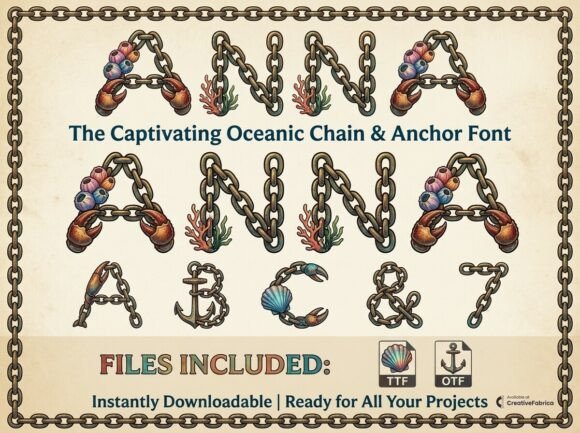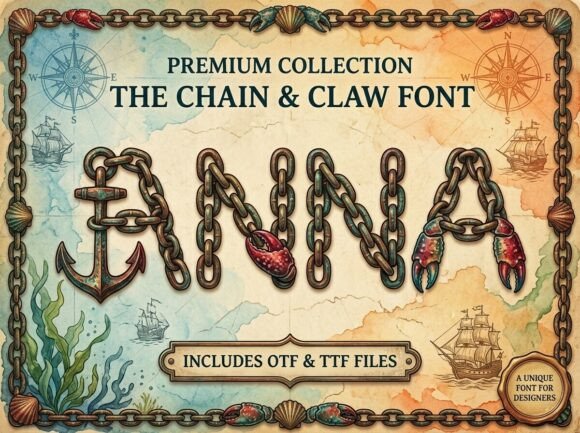
Introducing Anna Font: The Ultimate Decorative Display Font
Are you tired of using the same old fonts in your designs? Do you want to make a statement and grab the attention of your audience? Look no further than Anna Font, a stunning decorative display font that’s designed to be the center of attention. With its unique artistic elements and strong visual personality, this font is perfect for creators who want to break away from the ordinary and make their designs truly unforgettable.
What Makes Anna Font So Special?
Anna Font is a game-changer for designers and crafters who want to add a touch of elegance and sophistication to their work. This font features intricate details and creative letterforms that are sure to make your designs stand out from the crowd. Whether you’re working on a modern poster, a unique brand identity, or eye-catching social media content, Anna Font adds an instant “wow” factor to any project.
Perfect for High-Impact Designs
Anna Font is ideal for high-impact designs where the typography needs to do the talking. With its bold and artistic style, this font is perfect for making a statement and grabbing the attention of your audience. Whether you’re designing a poster, a logo, or social media content, Anna Font is sure to make your design pop.
Versatile and Professional
One of the best things about Anna Font is its versatility. This font is not only perfect for bold headlines and artistic logos, but it’s also suitable for creative packaging and other design projects. Despite its bold and decorative style, Anna Font maintains a professional and polished finish that’s perfect for businesses and brands who want to make a statement.
Use Cases for Anna Font
So, what can you use Anna Font for? The possibilities are endless! Here are some ideas to get you started:
- Poster Design: Create headlines that people can’t look away from. Anna Font is perfect for designing eye-catching posters that grab the attention of your audience.
- Branding & Logos: Build a unique identity for creative businesses. Anna Font is ideal for designing logos and branding materials that make a statement.
- Apparel & Merch: Perfect for T-shirts, hoodies, and tote bag designs. Anna Font adds a touch of elegance and sophistication to any apparel or merchandise design.
- Social Media Content: Create eye-catching social media content that stands out from the crowd. Anna Font is perfect for designing social media graphics, posts, and ads that grab the attention of your audience.
Why Choose Anna Font?
So, why choose Anna Font over other decorative display fonts? Here are just a few reasons:
- Unique and Creative: Anna Font features unique artistic elements and a strong visual personality that sets it apart from other fonts.
- Versatile: Anna Font is perfect for a wide range of design projects, from posters and logos to social media content and packaging.
- Professional: Despite its bold and decorative style, Anna Font maintains a professional and polished finish that’s perfect for businesses and brands.
In conclusion, Anna Font is a stunning decorative display font that’s perfect for creators who want to make a statement and grab the attention of their audience. With its unique artistic elements, strong visual personality, and versatility, this font is ideal for a wide range of design projects. Whether you’re designing a poster, a logo, or social media content, Anna Font adds an instant “wow” factor to any project. So why wait? Try Anna Font today and take your designs to the next level!